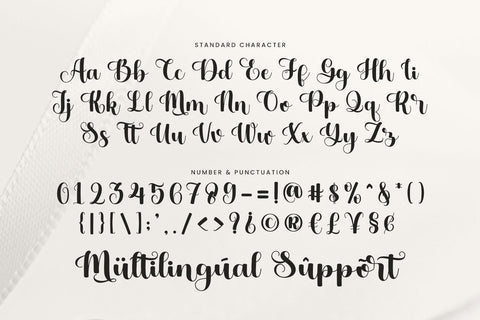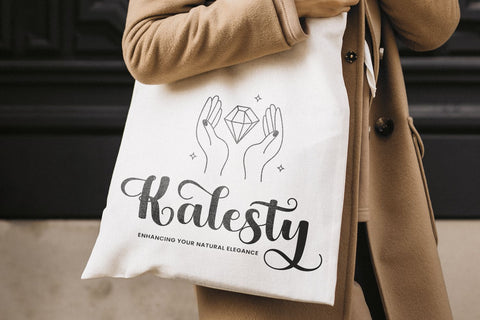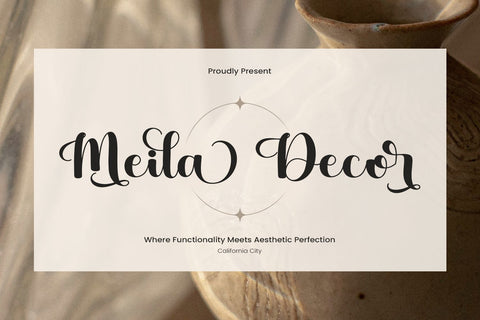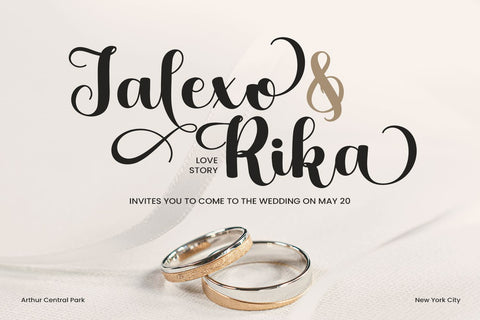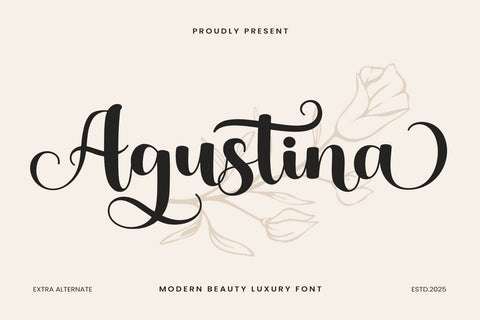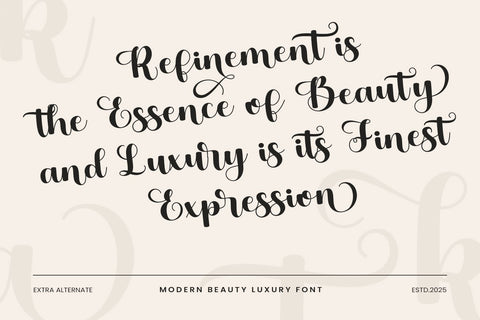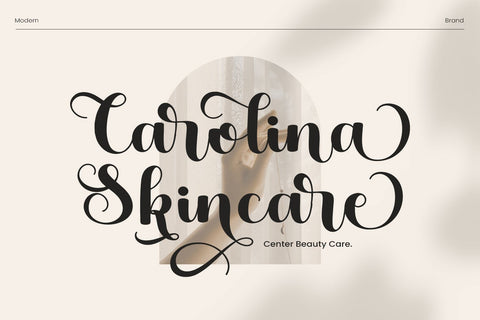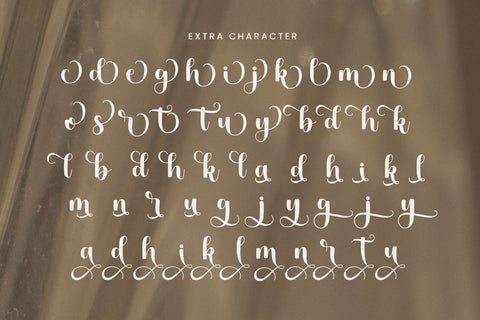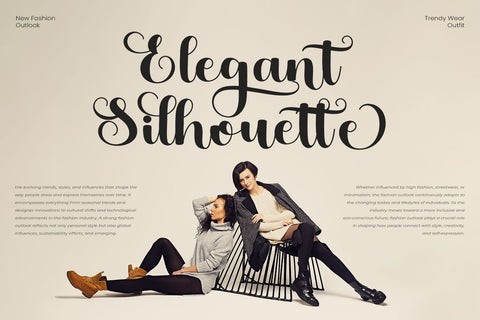
Agustina
Agustina is a beautifully crafted script handwritten font designed to bring elegance and charm to any project. With its smooth, flowing strokes and artistic touch, this font captures the essence of sophistication, making it perfect for wedding invitations, birthday celebrations, and seasonal greetings. Whether you're working on Easter designs, Thanksgiving crafts, or Christmas lettering, Agustina adds a warm and inviting feel to your creations.
This font features delicate beginning and ending swash tails on every character, enhancing its graceful and stylish appearance. The natural, handwritten style ensures a personal and heartfelt touch, ideal for Cricut projects, embroidery designs, and artistic lettering. Agustina blends seamlessly with themes like summer, spring, autumn, and winter, making it a versatile choice for all occasions.
To provide more creative freedom, Agustina includes a variety of alternate characters and stylish swashes, allowing you to customize your text effortlessly. Whether you’re designing a romantic wedding suite, a festive holiday banner, or a cozy Thanksgiving greeting, this font offers endless possibilities. Its fluid strokes and elegant curves give your projects a timeless, handcrafted aesthetic.
- Standard & Multilingual glyphs.
- Alternates & Ligatures